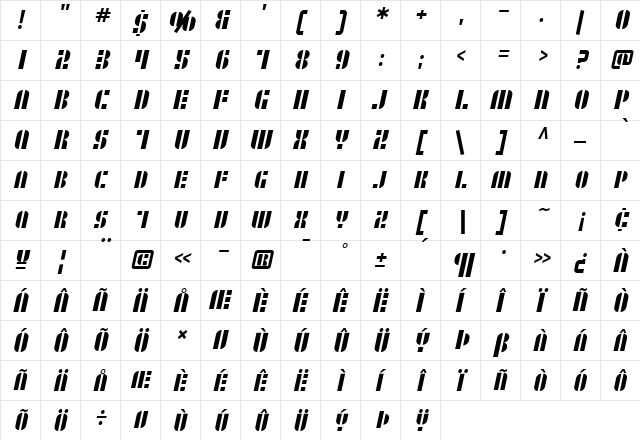
SF RetroSplice SC Regular
Design Context for SF RetroSplice SC Typeface
SF RetroSplice SC wears its vintage influences proudly, with letterforms that recall mid-century signage, classic packaging, and nostalgia-driven design.
Font Pairing: Combine SF RetroSplice SC with a simple slab or neutral sans — period-accurate companions reinforce the vintage feel without competing for attention.
Pro Tip: Use SF RetroSplice SC for headlines and pull quotes rather than body copy — its personality is best appreciated in short, focused bursts.